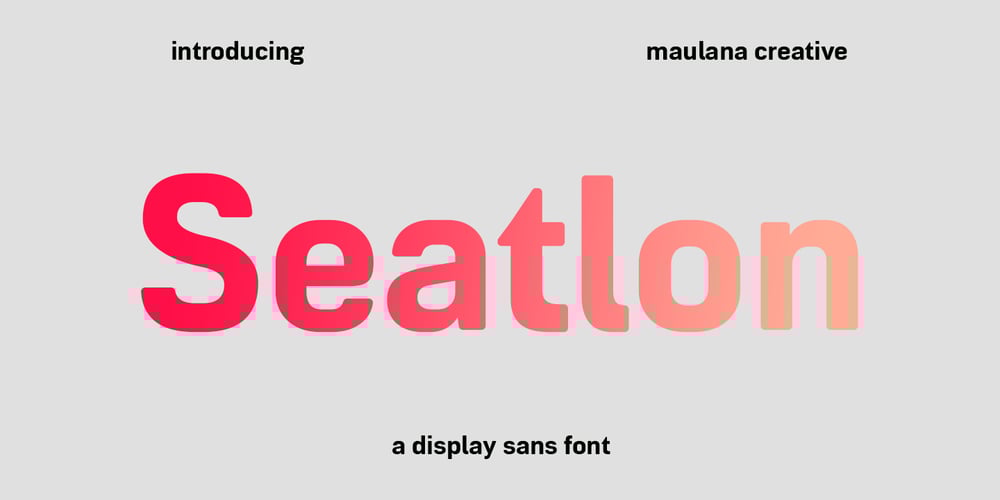
MC Seatlon Font Family was designed by Gilang Maulana and published by Maulana Creative. MC Seatlon contains 1 styles and family package options. Seatlon is an almost square sans serif display font. With bold stroke, fun character with a bit of ligatures and alternates. To give you an extra creative work. Seatlon font support multilingual more than 100+ language. This font is good for logo design, Social media, Movie Titles, Books Titles, a short text even a long text letter and good for your secondary text font with script or serif. Make a stunning work with Seatlon font. Cheers, Maulana Creative